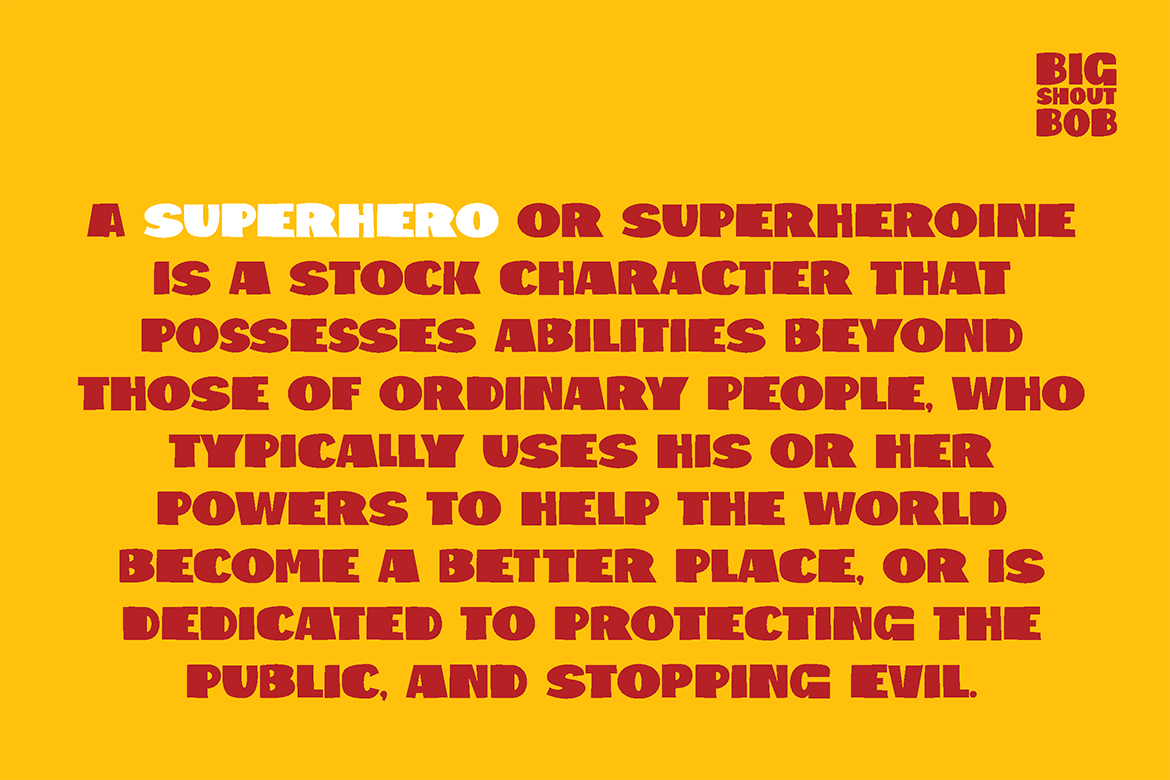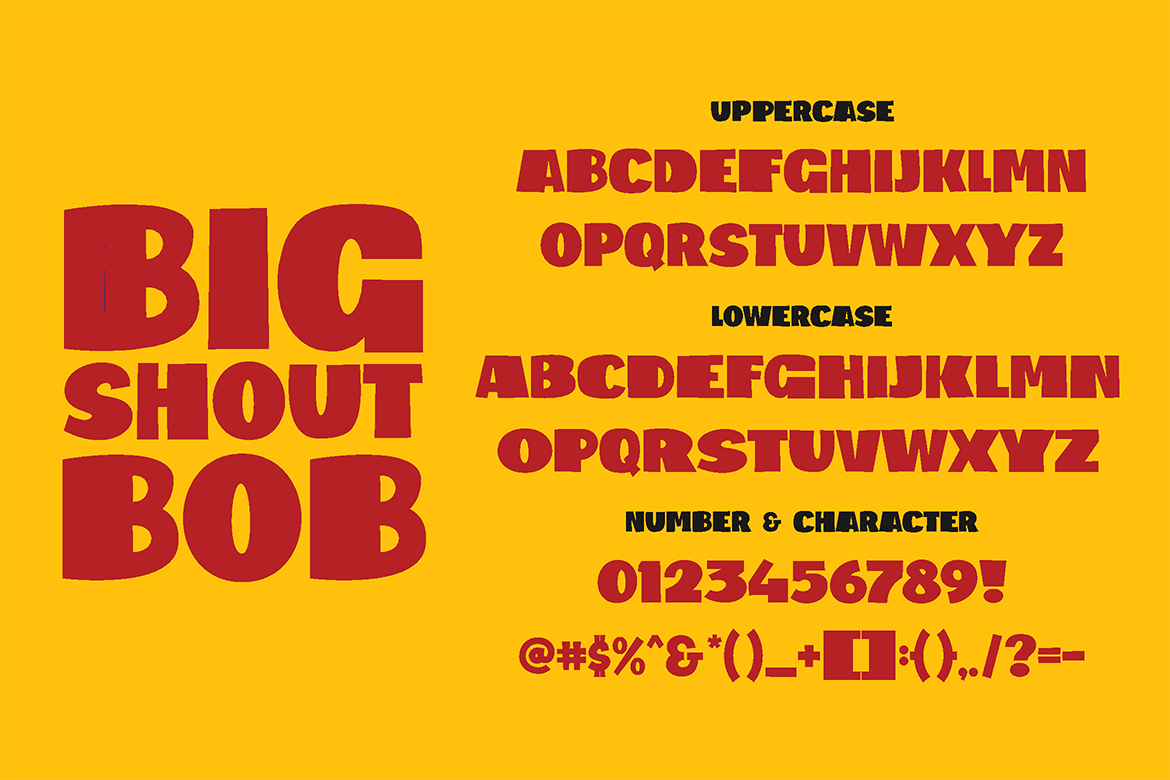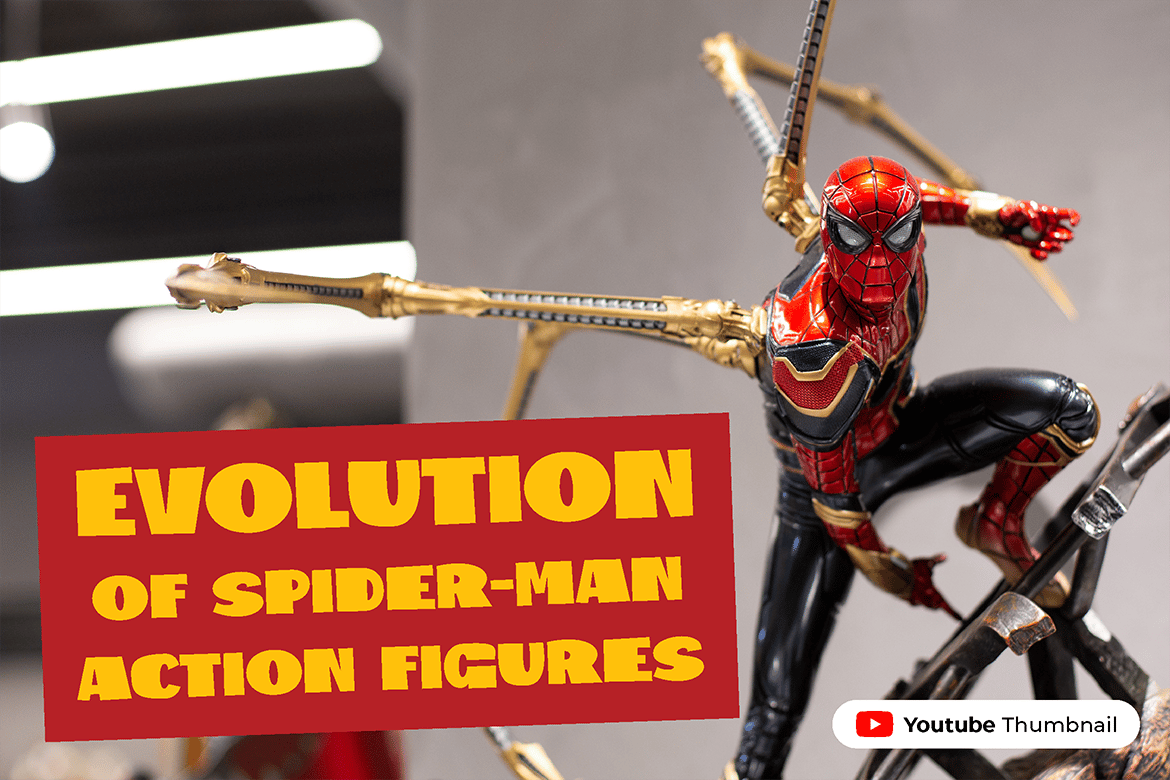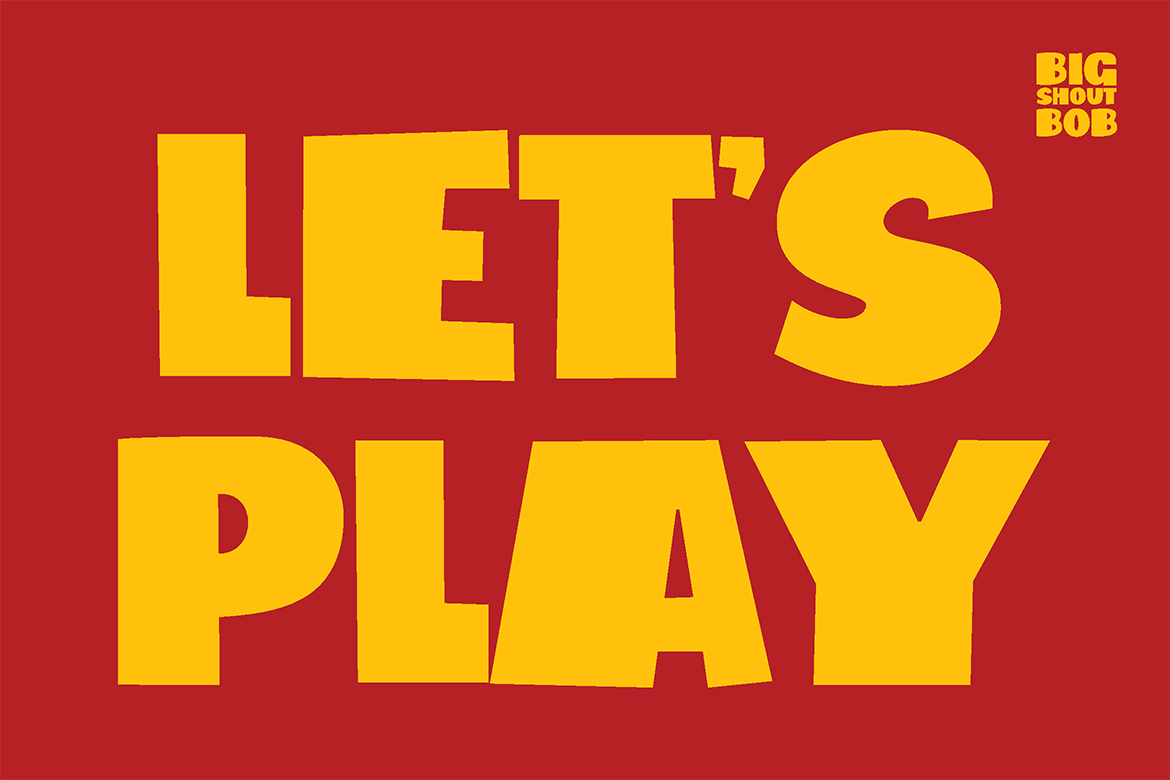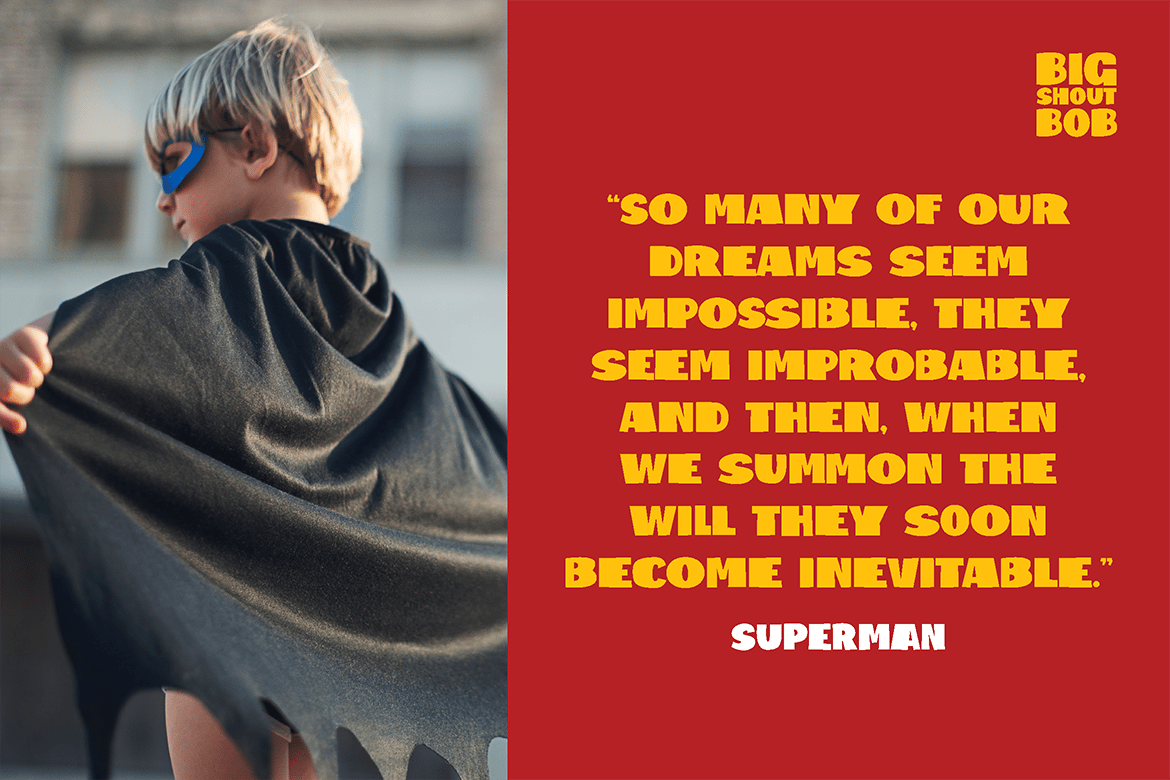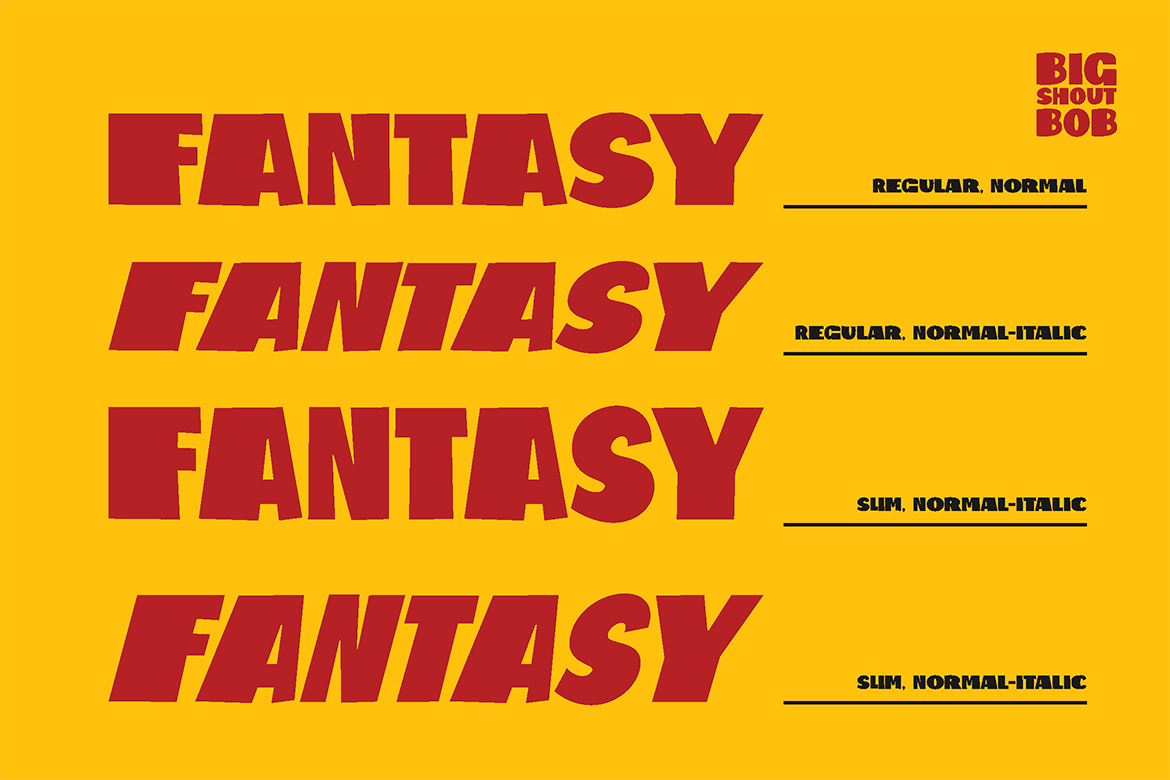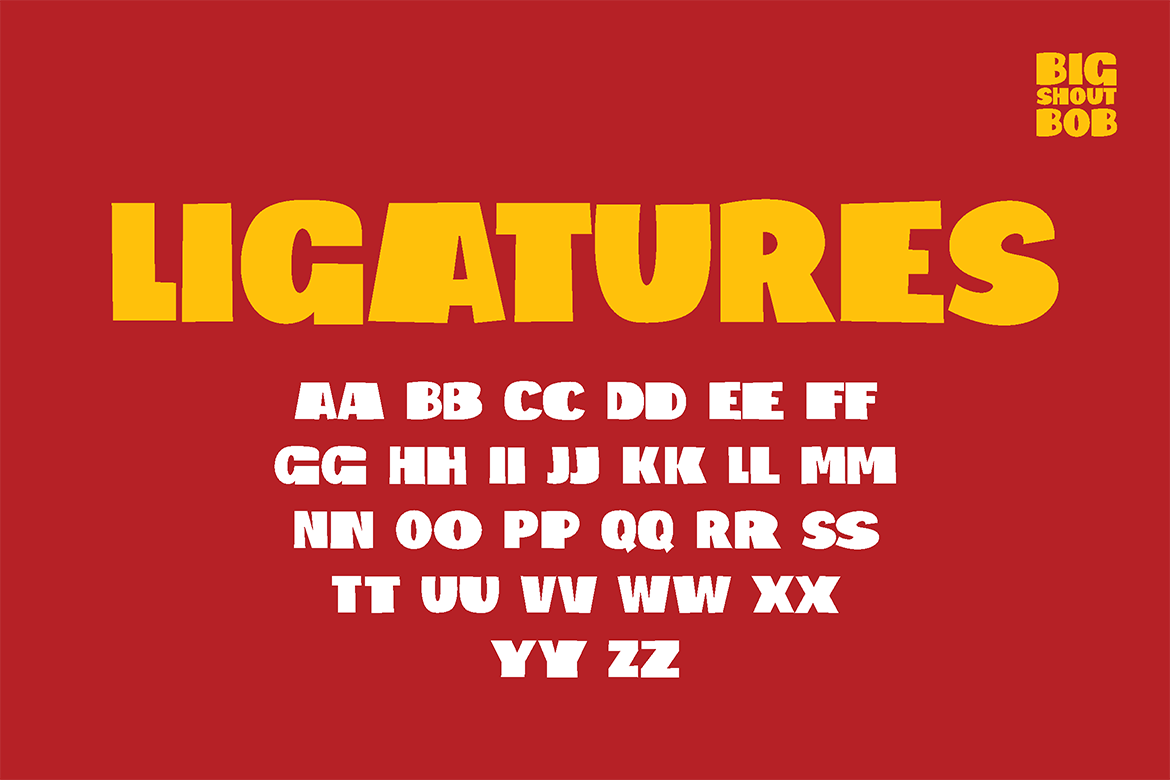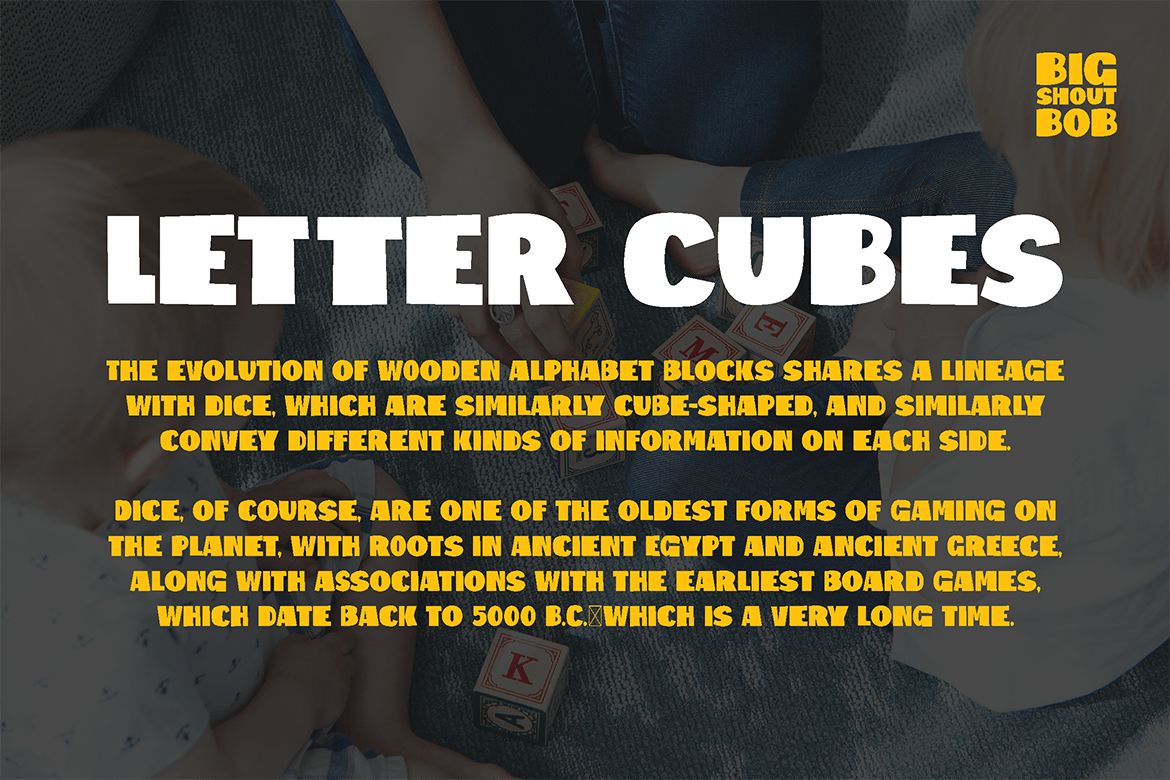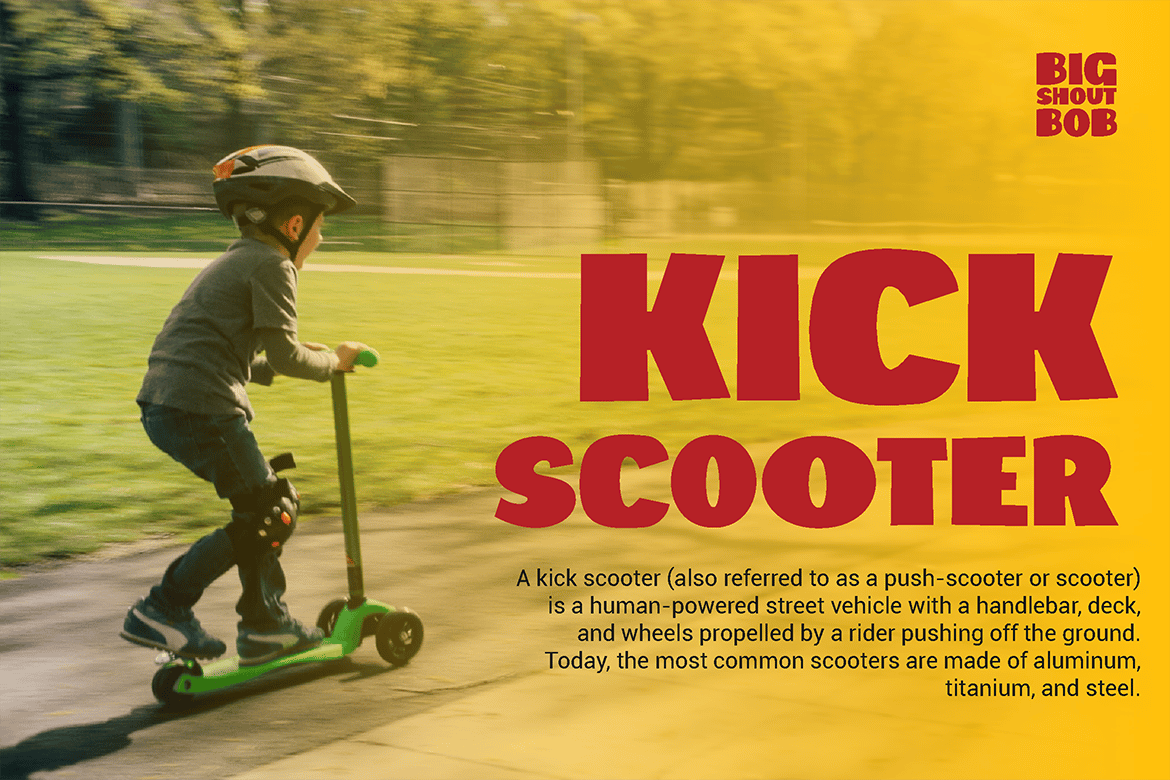
Retro Comic Font – Big Shout Bob
BIG SHOUT BOB – Bold, Loud, and Packed with Energy!
BIG SHOUT BOB is a high-impact display font designed to shout your message with confidence and fun. Featuring thick, blocky letters with a dynamic presence, this typeface commands attention while keeping a playful and friendly edge. Inspired by comic book lettering, action-packed titles, and retro gaming aesthetics, BIG SHOUT BOB is perfect for posters, kids’ content, sports branding, and anything that needs a punch of bold energy.
Whether you’re designing for toys, gaming events, movie posters, or eye-catching ads, this font ensures your words don’t just speak—they roar! Pair it with vibrant colors and dynamic layouts for maximum impact.
Why Choose BIG SHOUT BOB?
- Ultra-Bold & Playful – A loud and energetic typeface built for action.
- Perfect for Posters & Branding – Ideal for gaming, entertainment, and kids’ content.
- Comic & Retro Appeal – Inspired by old-school comics and arcade lettering.
- High Readability & Impact – Thick strokes ensure visibility at any size.
- Versatile for Fun Designs – Works great in advertising, packaging, and merchandise.
Turn up the volume with BIG SHOUT BOB – because some words deserve to be heard!
- Reguler and Slim, both have Italic version.